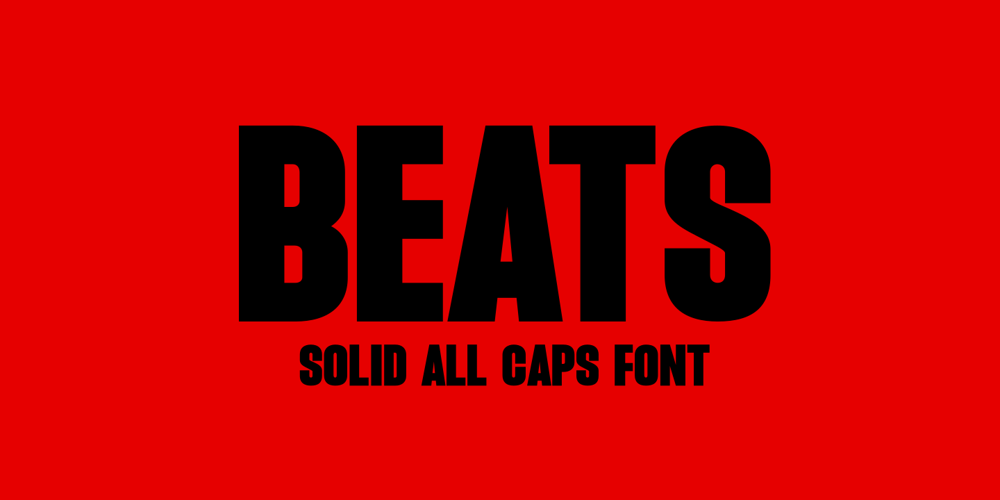
Beats Font Family was designed by Arief Rochman and published by 4RM Font. Beats contains 2 styles and family package options. Inspired by street posters, this font combines the value of beauty and authenticity in its creation. and the style set feature adds variety to the anatomy of the letters, this font belongs to the display category which is suitable for use in graphic designs such as posters, billboards, and large graphic designs.